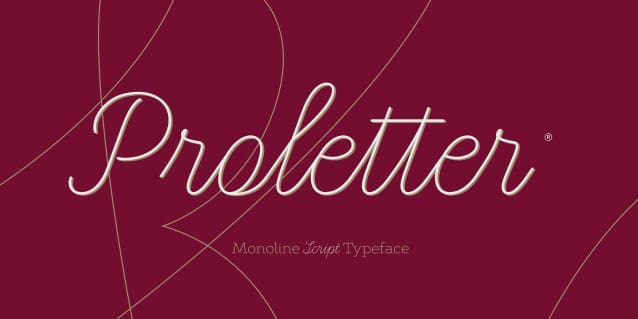
Proletter Script Font
Proletter Script Font is light, sophisticated and elegant script typefaces based on classical and simplified monoline cursive. Taking advantage of Opentype functions, it’s possible to choose different letterforms, by activating Ligatures, Contextual and Stylistic Alternates. The character set supports Western and Central European languages, completely MacOS Roman and MacOS Cyrillic code pages.
Our initial idea was to create a font modeled on a simplified school alphabet, written with a ballpoint or rounded nib. Compared to classic school letters, the capitals are slightly lower, so that the line spacing in the text could be smaller.
We did not make Proletter Script typeface in more than one weight, but if you want, you can add an outline, and that way make the text bolder. In any case, it is hard to make a mistake with monoline fonts. Relax and enjoy your work!